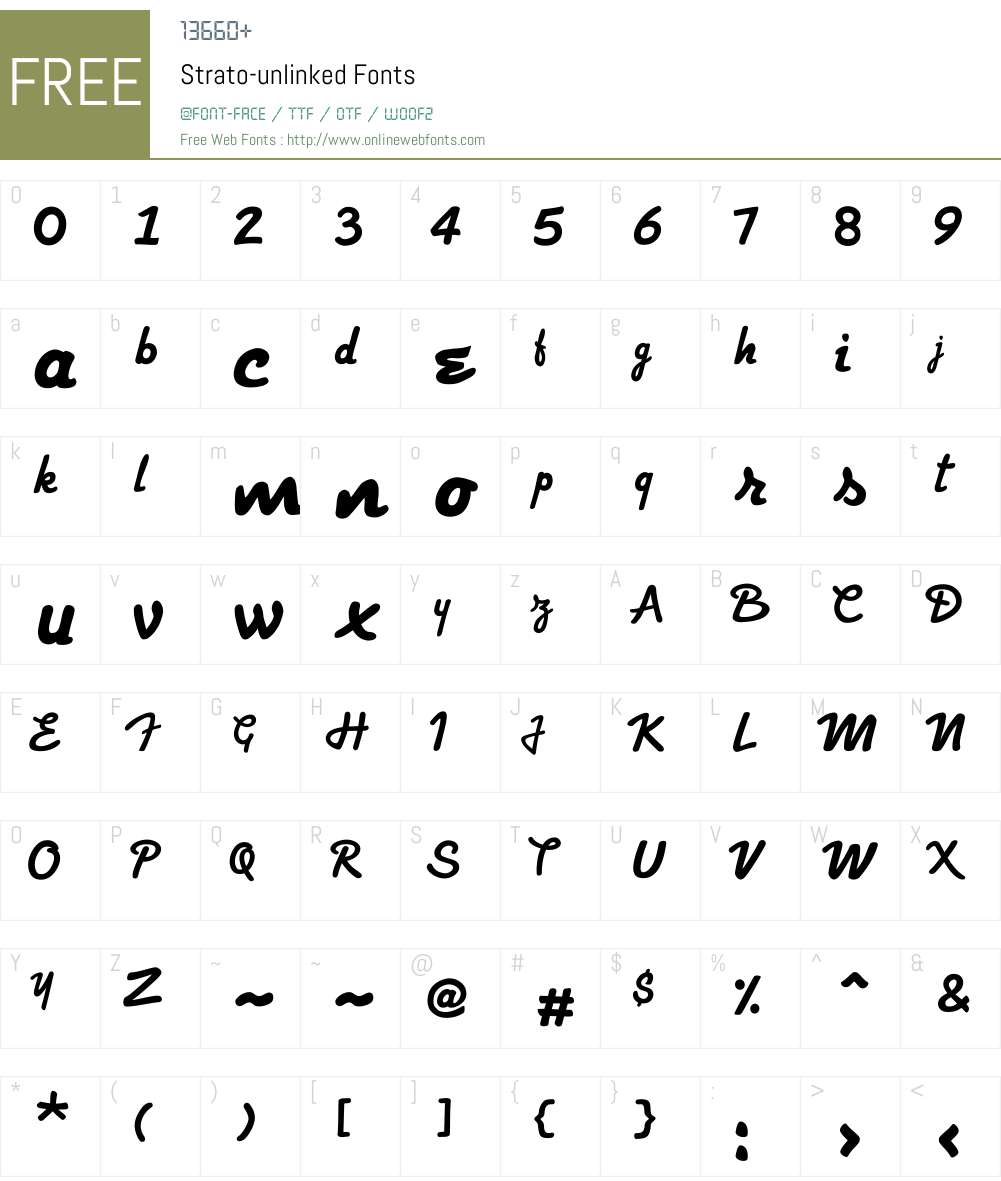
Strato Linked Font Photogrid . Linked), 230 characters in total. Typography based on fender\'s script logos.
Web strato linked version 002.200 font (font family name: Web strato linked by bastien sozoo is a font based on the fender logo. Web strato linked version 002.200 font (font family name: Truetype and opentype fonts available.
Strato Linked Font Photogrid - Linked), 230 characters in total. Fender is a popular american musical. Web strato linked by bastien sozoo is a font based on the fender logo. It is a free font. Web download strato font family · free for commercial use · copyright (c) 2010 by bsozoo.
Strato Linked Font Photogrid - Web with photogrid, adding text is a breeze, thanks to its vast library of fonts that cater to every style and language. Web strato linked by bastien sozoo is a font based on the fender logo. Web strato linked version 002.200 font (font family name: Typography based on fender\'s script logos. Web free strato font download.
Strato Linked Font Photogrid - Typography based on fender\'s script logos. It is a free font. Fender is a popular american musical. Web strato linked version 002.200 font (font family name: Web strato linked version 002.200 font (font family name:
Strato Linked Font Photogrid - Fender is a popular american musical. Web with photogrid, adding text is a breeze, thanks to its vast library of fonts that cater to every style and language. Web strato linked version 002.200 font (font family name: Typography based on fender\'s script logos. Web free strato font download.
Strato Linked Font Photogrid - Linked), 213 characters in total. Linked), 230 characters in total. Web with photogrid, adding text is a breeze, thanks to its vast library of fonts that cater to every style and language. Web strato linked by bastien sozoo is a font based on the fender logo. Fender is a popular american musical.
Strato Linked Font Photogrid - Web with photogrid, adding text is a breeze, thanks to its vast library of fonts that cater to every style and language. Linked), 213 characters in total. Truetype and opentype fonts available. Web strato linked by bastien sozoo is a font based on the fender logo. Web strato linked version 002.200 font (font family name:
Strato Linked Font Photogrid - Linked), 213 characters in total. It is a free font. Web download strato font family · free for commercial use · copyright (c) 2010 by bsozoo. Web strato linked version 002.200 font (font family name: Web strato linked version 002.200 font (font family name:
Strato Linked Font Photogrid - Web strato linked by bastien sozoo is a font based on the fender logo. Truetype and opentype fonts available. Fender is a popular american musical. Linked), 213 characters in total. Typography based on fender\'s script logos.